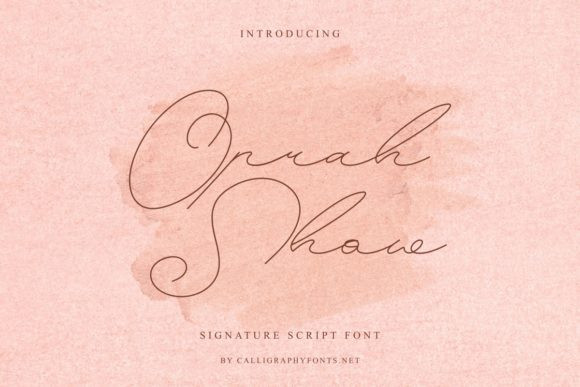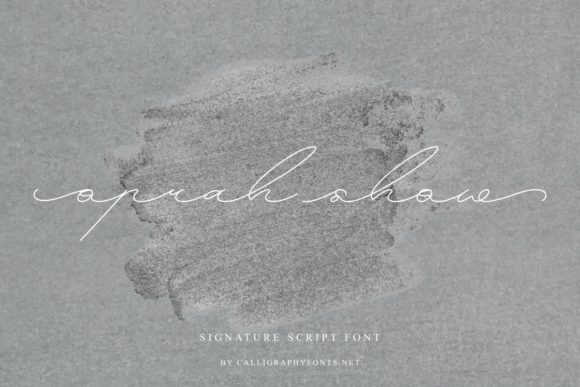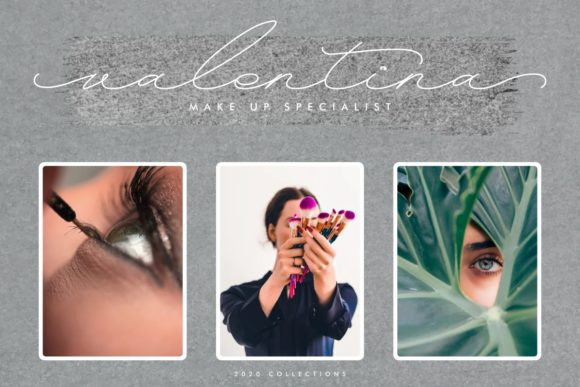
Oprah Show Font
Oprah Show is a thin and lovely handwritten font. It feels playfully nostalgic and delivers an incredible elegant aesthetic. Fall in love with it and bring your projects to the highest levels!